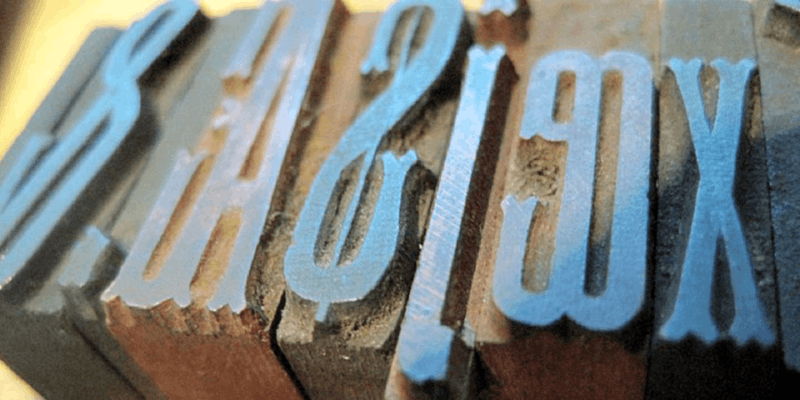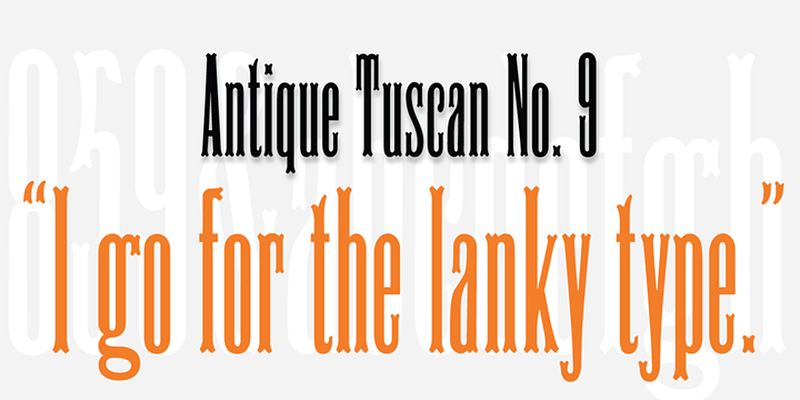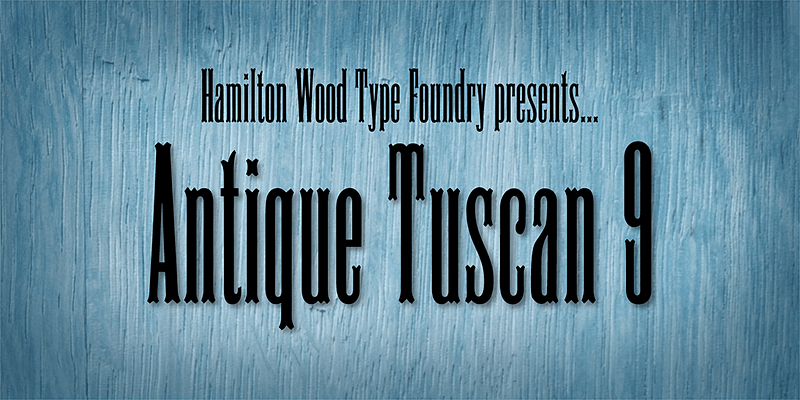
HWT Antique Tuscan 9 is a very condensed 19th century wood type design, first shown by Wm. H. Page Co. in 1859. This digital version includes lowercase, ligatures, and extended European character set.
Hamilton Wood Type Collection, established in 2012, is a joint venture between P22 Type Foundry and the Hamilton Wood Type & Printing Museum. The founding goal was to safeguard a typographic era and make classic wood type designs available as digital fonts for modern audiences. This historical collection of serif revivals, sans reinterpretations, decorative embellishments, script reclamations, and original chromatic designs is stunningly relevant and usable for any imaginative design practice.